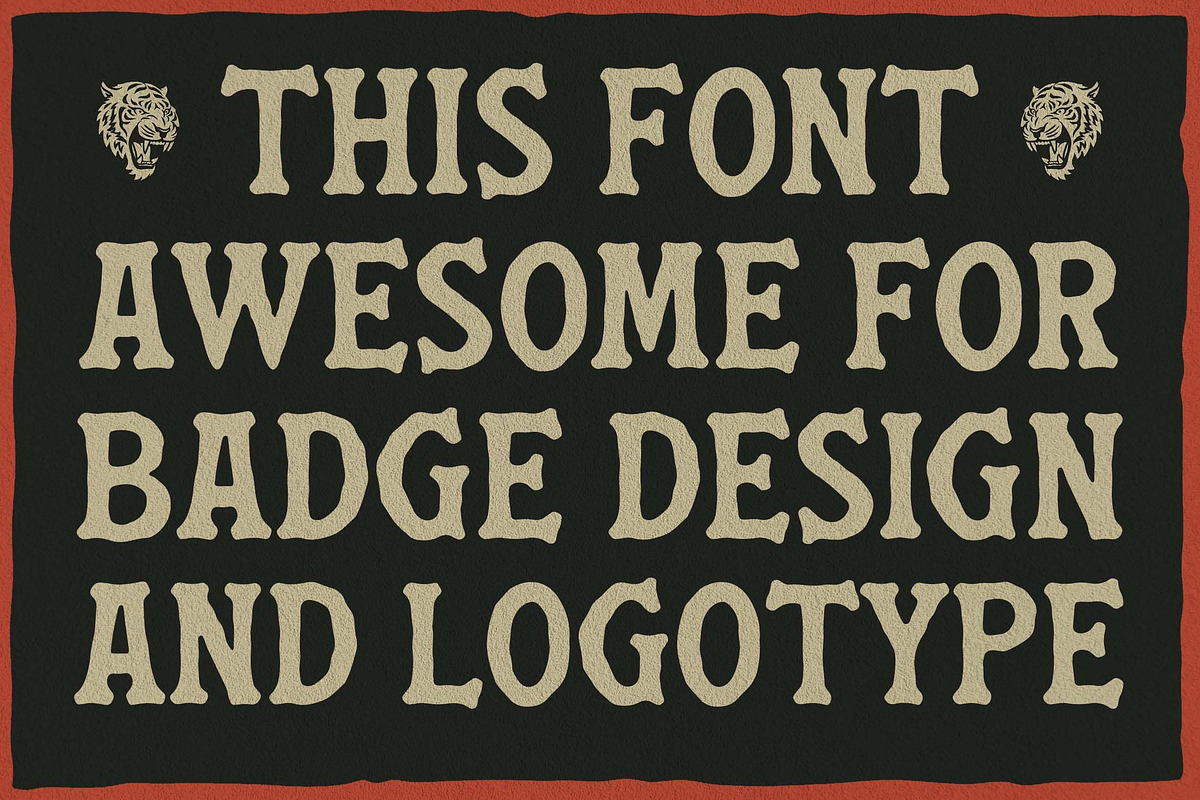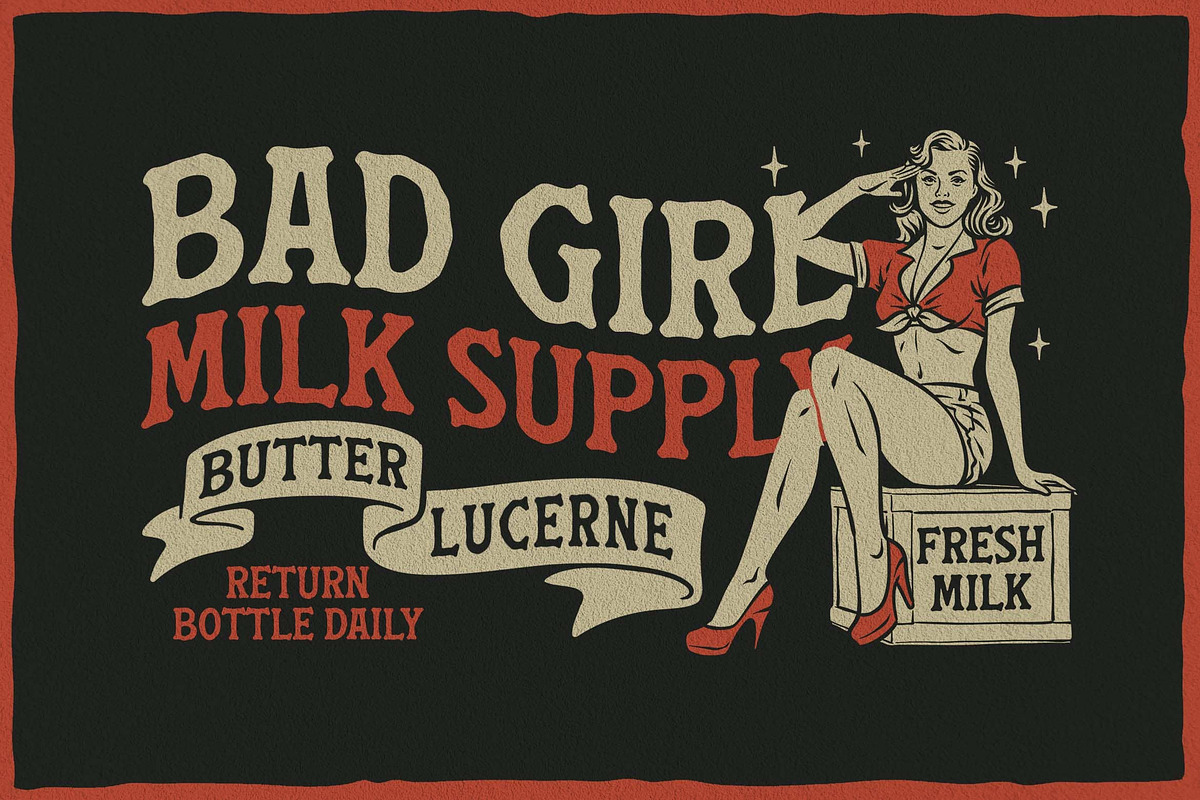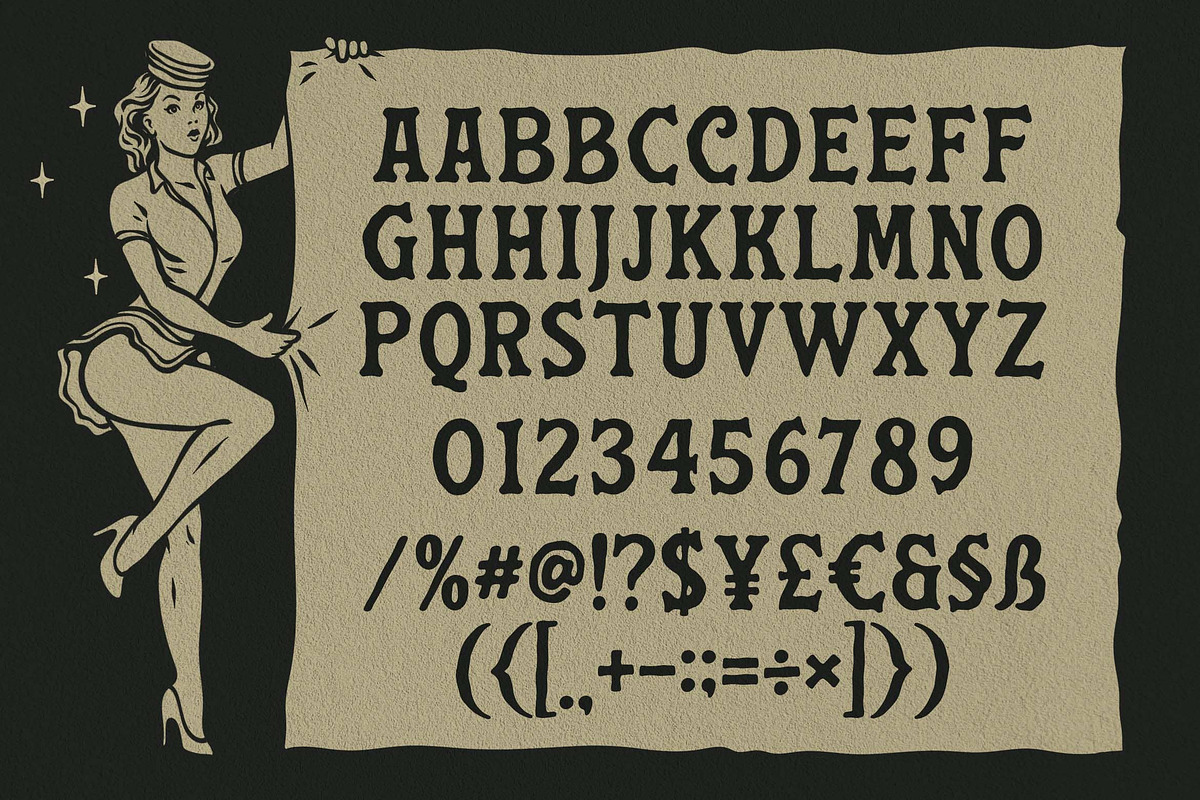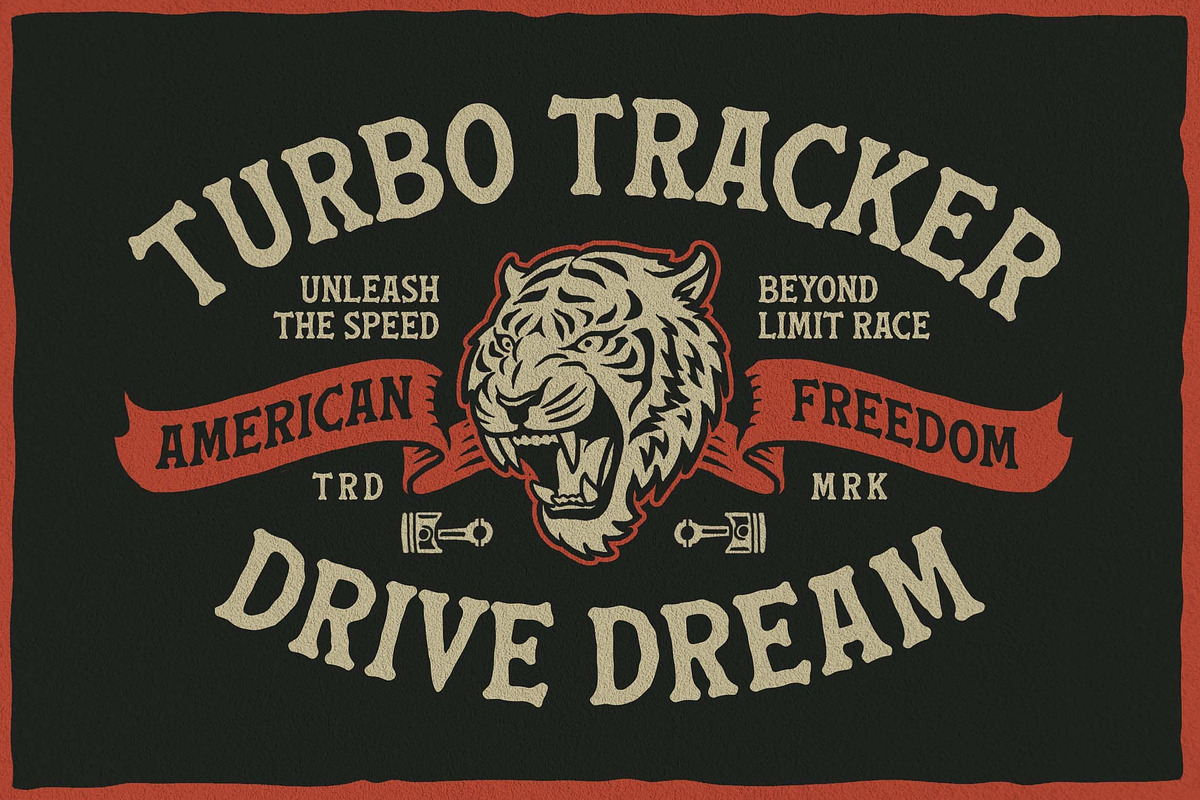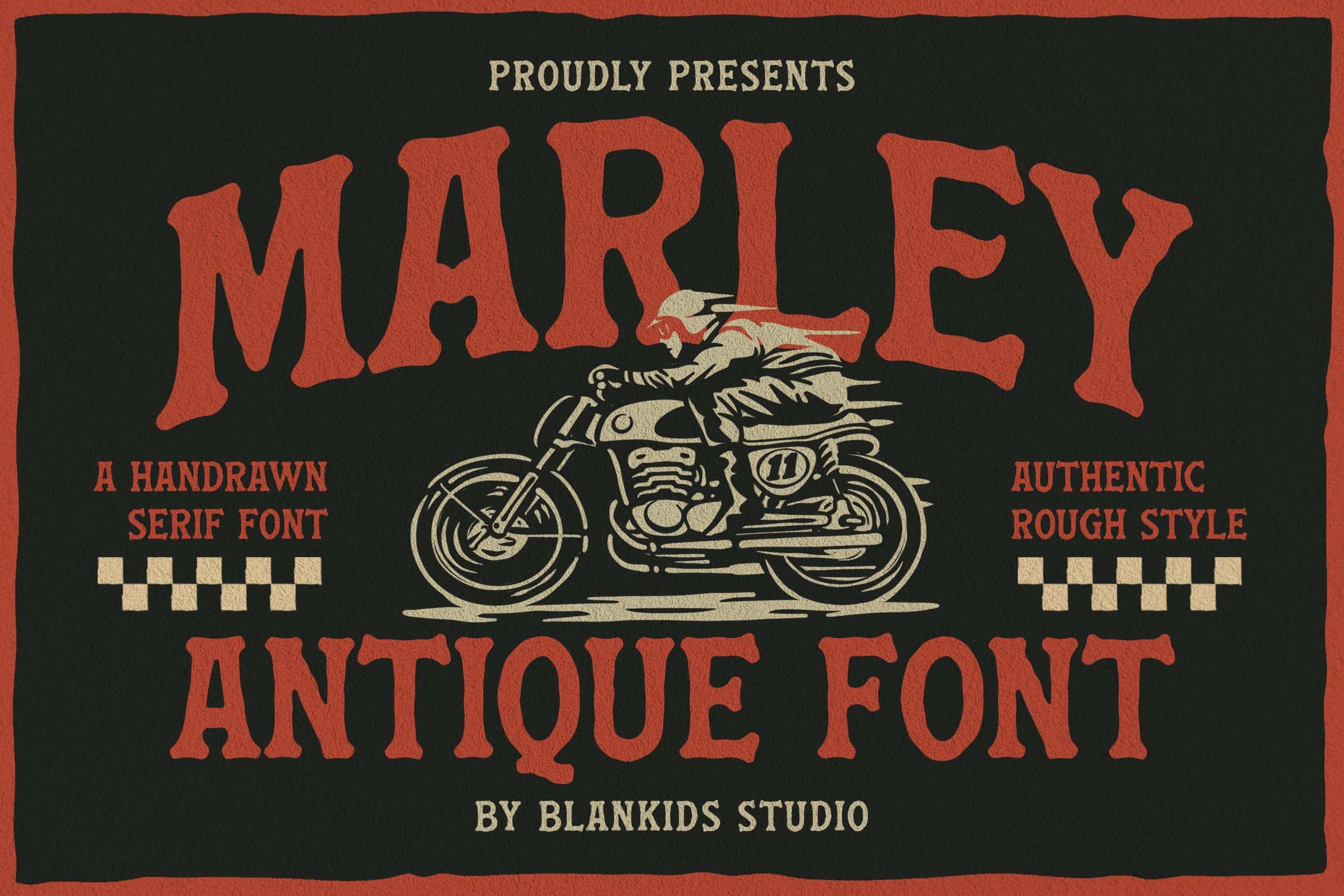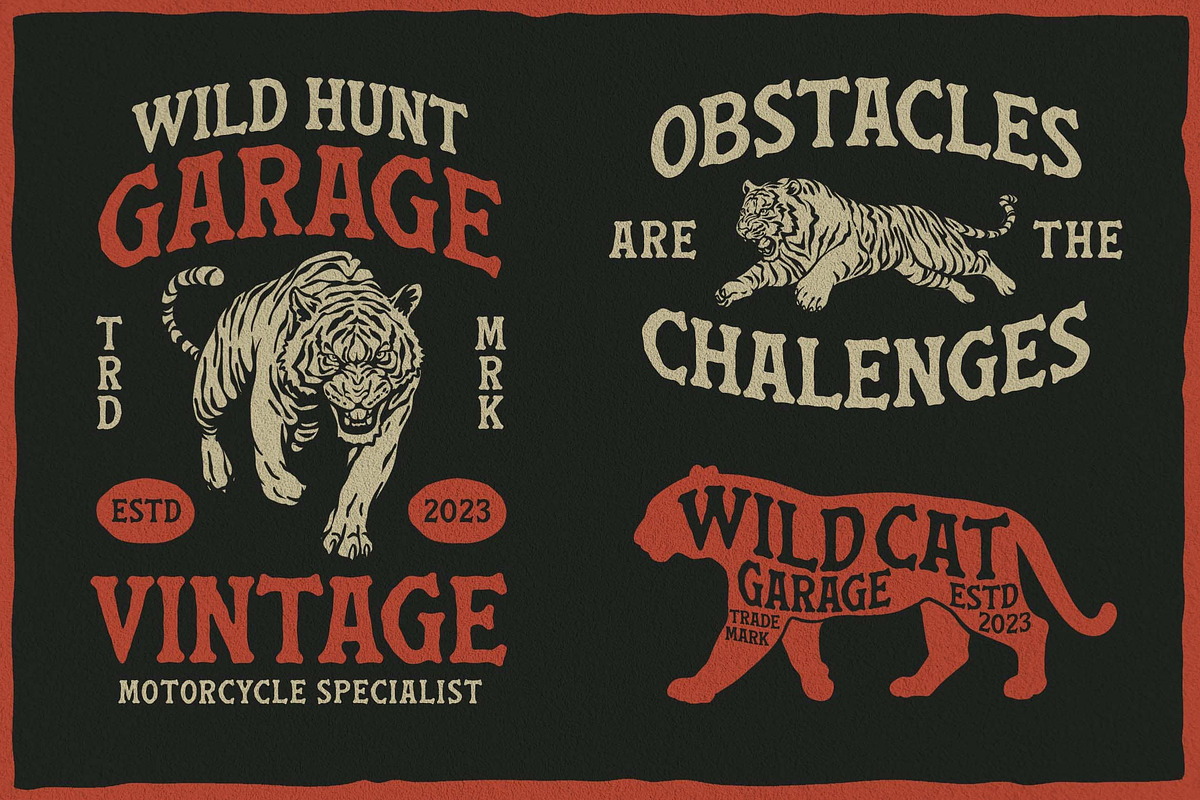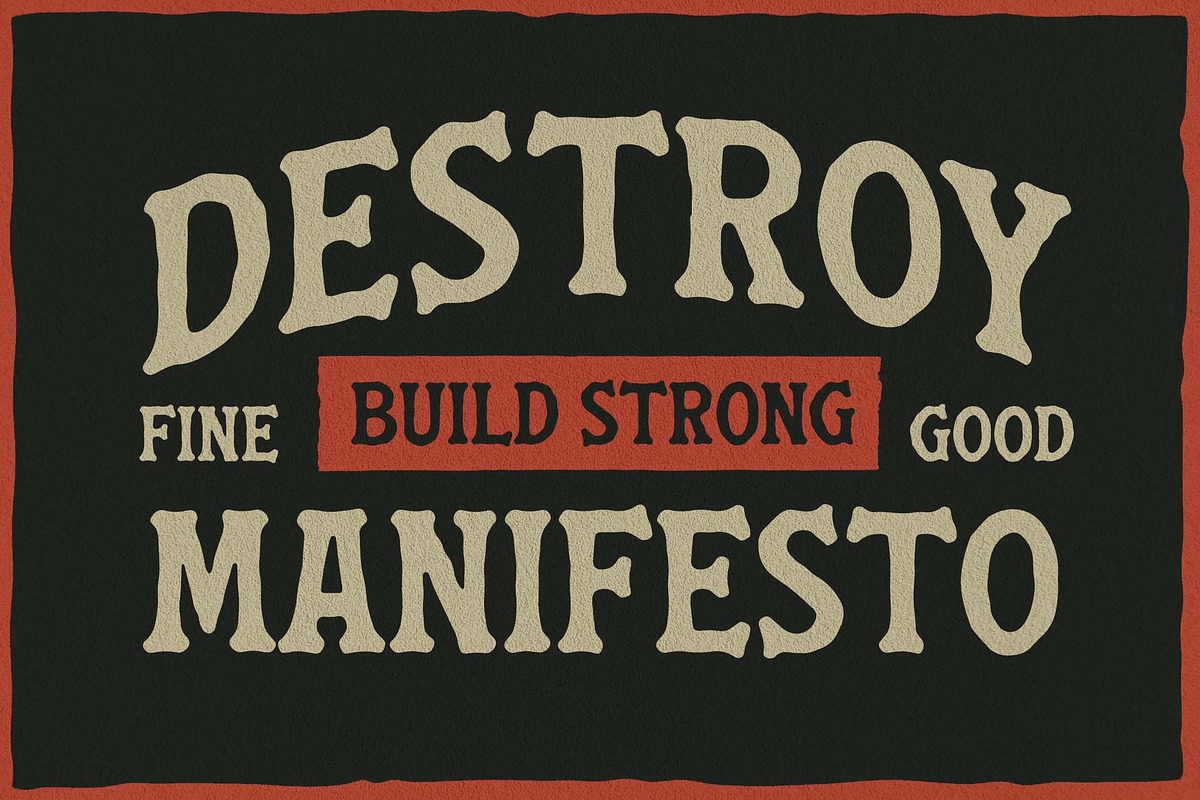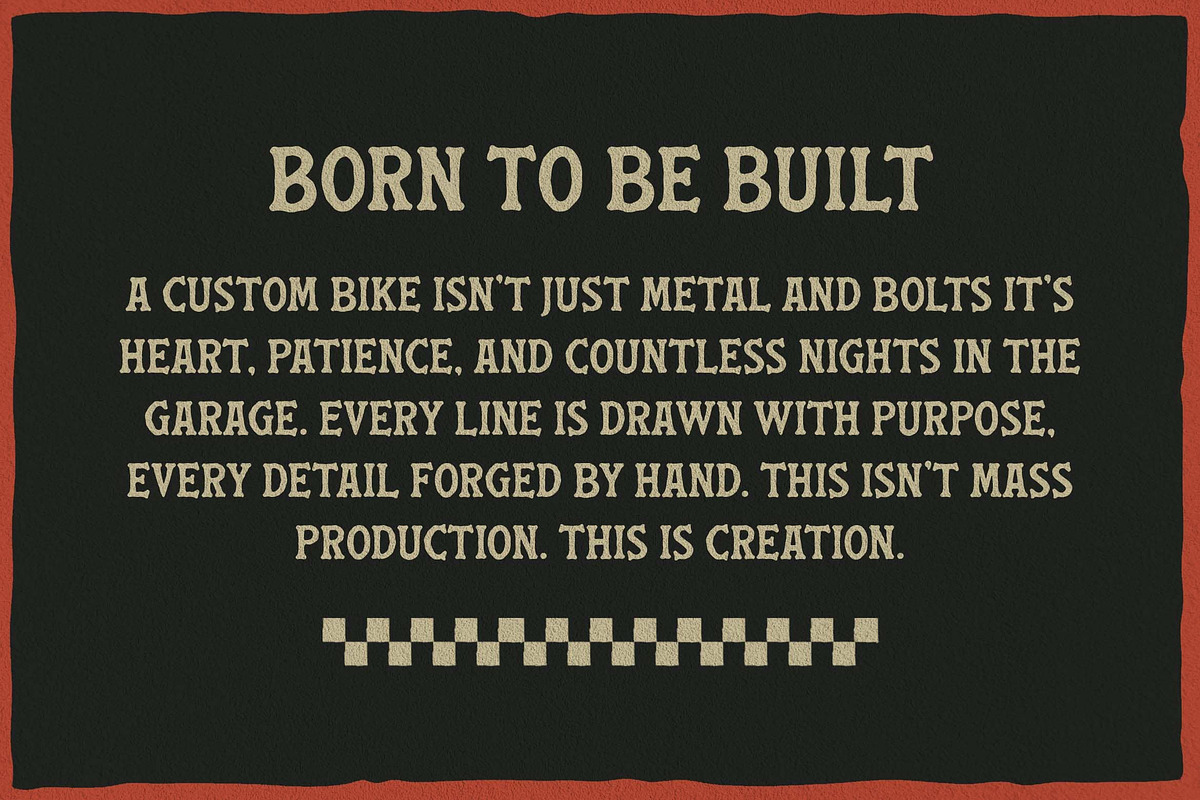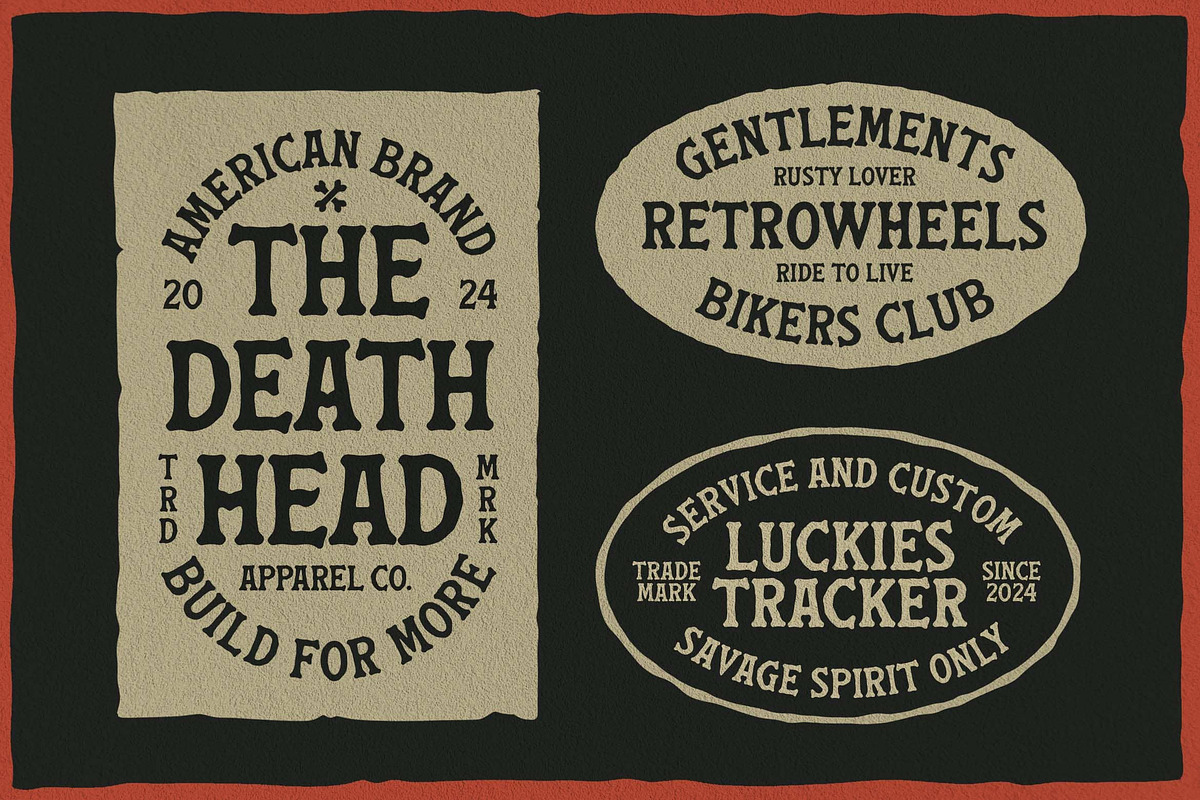
Marley Antique a Handmade Serif Font
Marley Antique – Handcrafted Vintage Serif Font
Marley Antique is a bold, hand-drawn serif font inspired by classic vintage signage, retro motorcycle culture, and timeless Americana aesthetics. Designed with an authentic rough texture, this typeface captures the spirit of handcrafted lettering perfect for designers who want to add character, grit, and personality to their work.
Every letter in Marley Antique is carefully crafted to deliver a natural, imperfect look, making it ideal for projects that demand a strong, nostalgic, and masculine visual identity.
If you're looking for a font that feels authentic, bold, and handcrafted, Marley Antique delivers a unique vintage aesthetic that stands out from clean, overused serif fonts. Its rough edges and organic feel make your designs look more human, more expressive, and more memorable.